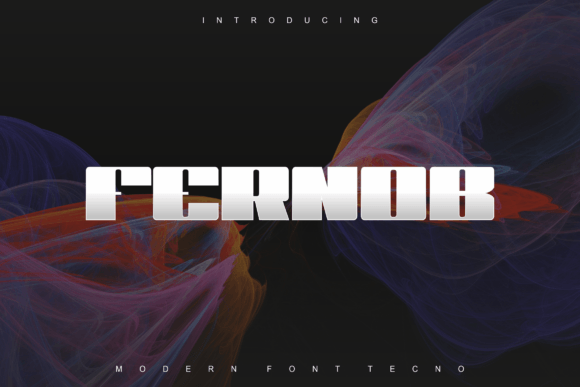
Behold Fernob, the font that's as bold and distinctive as its namesake, the Fern. With its robust strokes and confident curves, Fernob is a sans serif font that commands attention wherever it goes. Whether you're creating logos, designing posters, or crafting social media graphics, Fernob is your go-to font for making an impact.
With its modern and edgy aesthetic, Fernob is a perfect choice for brands looking to stand out from the crowd. It's the font that says, "We're not afraid to be different." Fernob is a versatile font that can be successfully used in almost any project. Its bold strokes and confident curves make it perfect for creating high-impact headlines, logos, and posters. At the same time, its clean and legible design makes it easy to read in body text, making it a great choice for websites and other digital applications. And because it's available in a variety of weights and styles, you can easily customize Fernob to perfectly fit the look and feel of your project.
Get ready to make a statement with Fernob—the only font that's bold enough to be a meme and elegant enough to grace a wedding invitation. This font is guaranteed to turn heads and leave a lasting impression, no matter how you use it.
Here's why Fernob is the font you need:
* **It's bold and confident:** Fernob's thick strokes and assertive curves make it a font that demands attention. It's perfect for making a statement and standing out from the crowd.
* **It's versatile:** Fernob can be used for a wide range of projects, from logos and posters to websites and social media graphics. Its clean and legible design makes it easy to read in any context.
* **It's unique:** Fernob is a one-of-a-kind font that you won't find anywhere else. It's the perfect way to add a touch of personality to your work.